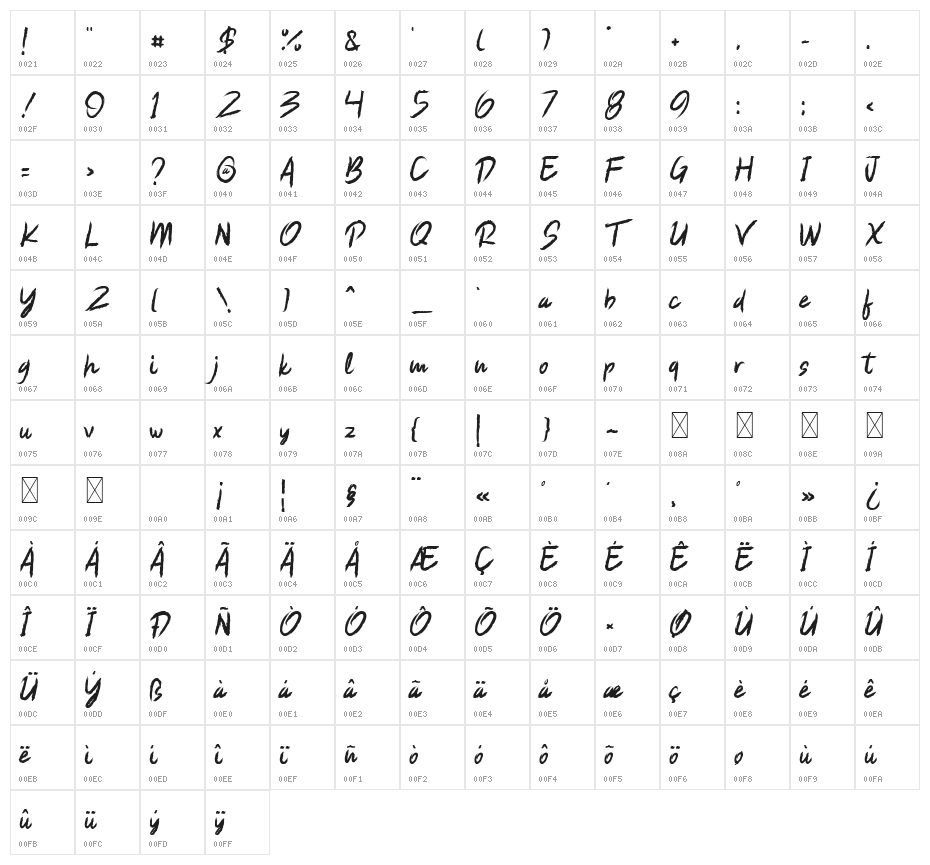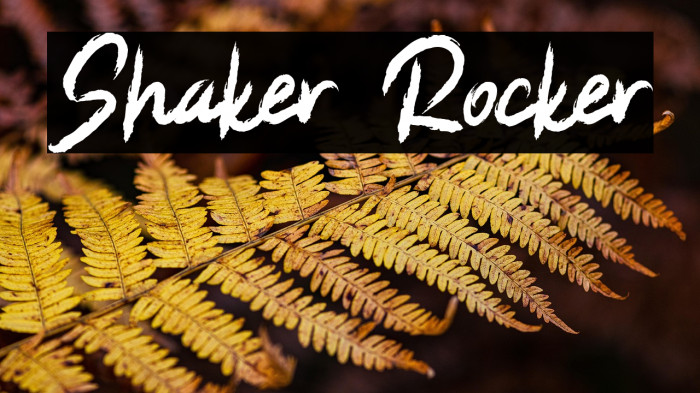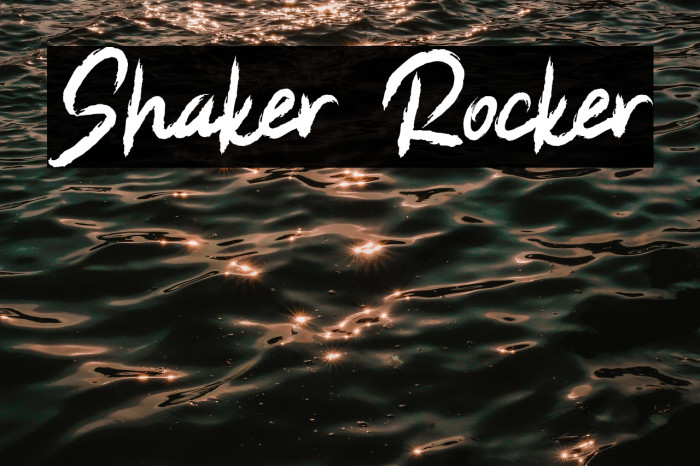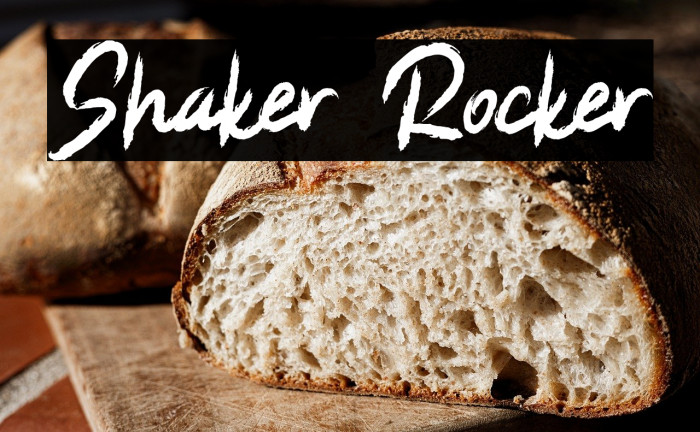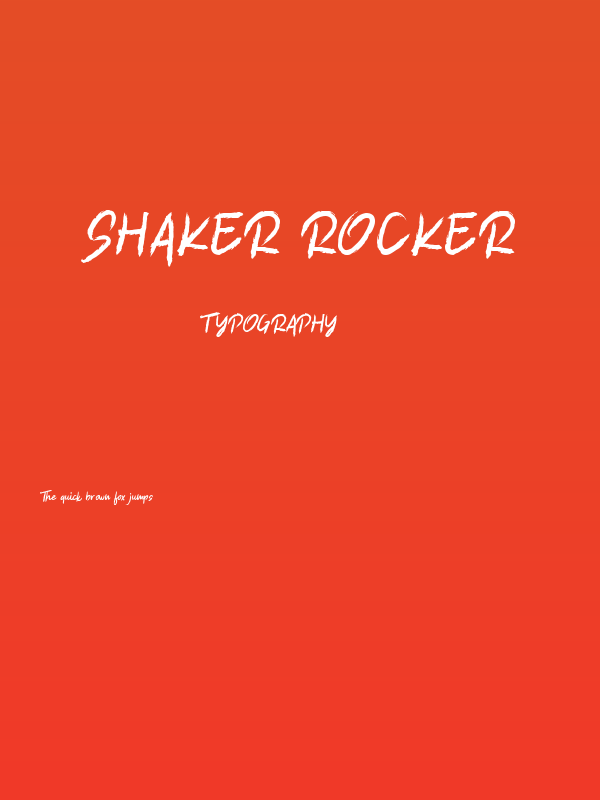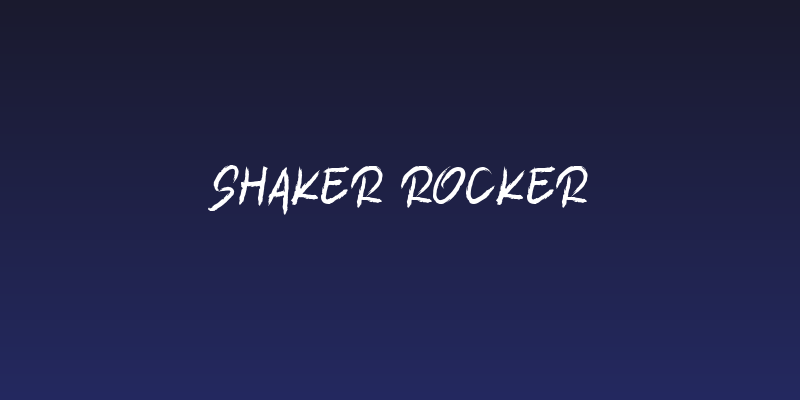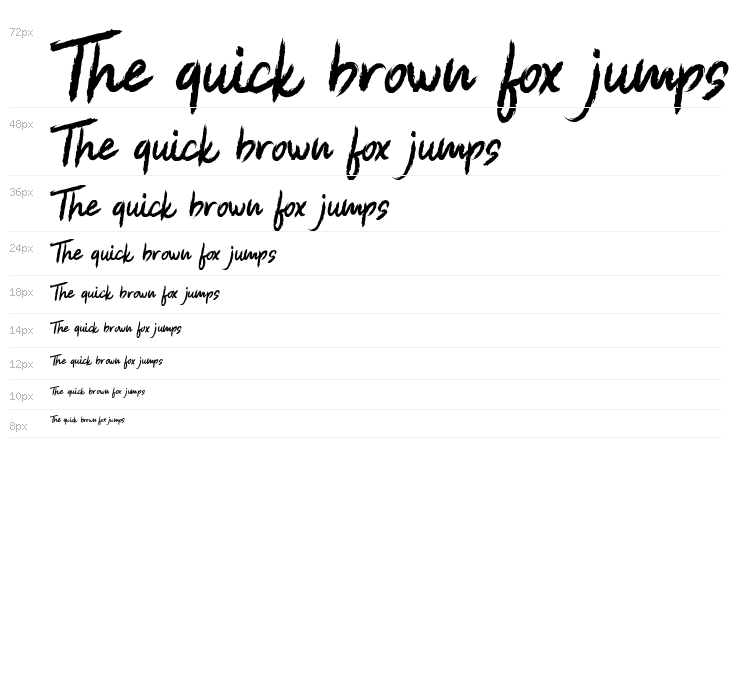
Shaker Rocker Font
Shaker Rocker Description
This font exudes a dynamic and energetic feel, characterized by its brush-like strokes and expressive, hand-drawn appearance. The letters are slightly slanted, adding to the sense of movement and fluidity. The uppercase and lowercase letters maintain a consistent style, with sharp edges and varying stroke widths that create a lively texture. The numerals and special characters follow the same aesthetic, ensuring a cohesive look across all text elements. This font's bold and artistic style makes it stand out, perfect for projects that require a touch of creativity and flair.
| Proposed Projects | Ideal for posters, album covers, artistic branding, and creative advertising campaigns. |